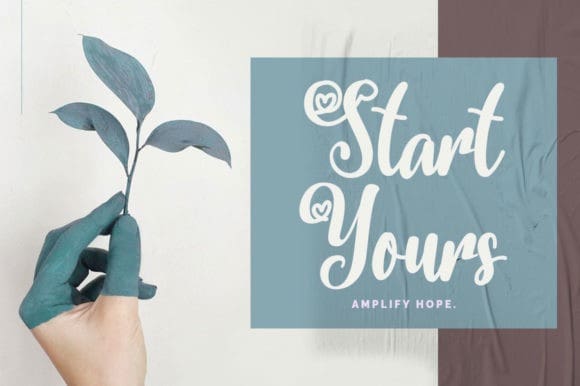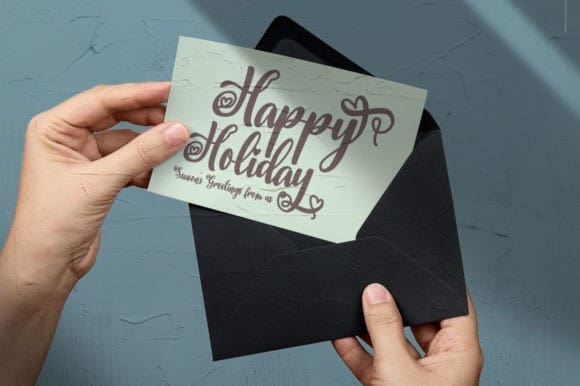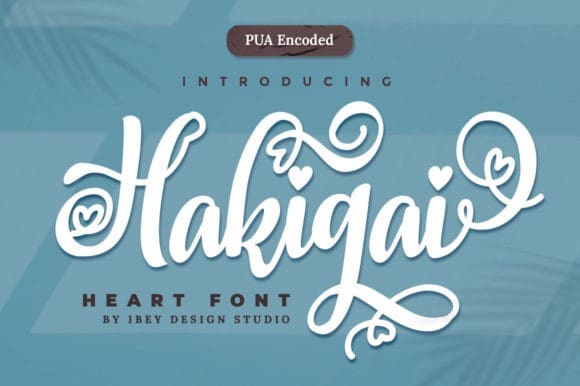
Hakigai Script Font
Hakigai Script Font is a lovely and delicate script font that exudes elegance and class. This font was particularly crafted for those who need a beautiful and refreshing look to their designs. Hakigai is PUA encoded which means you can access all glyphs and swashes with ease!